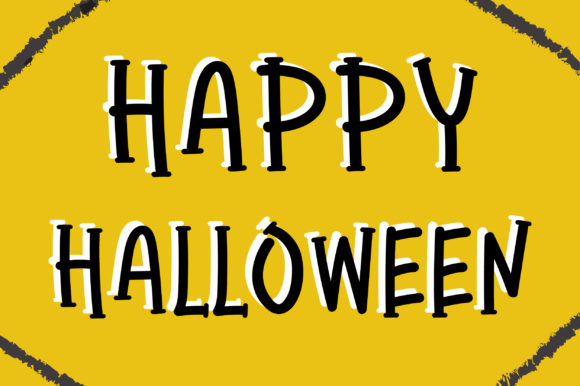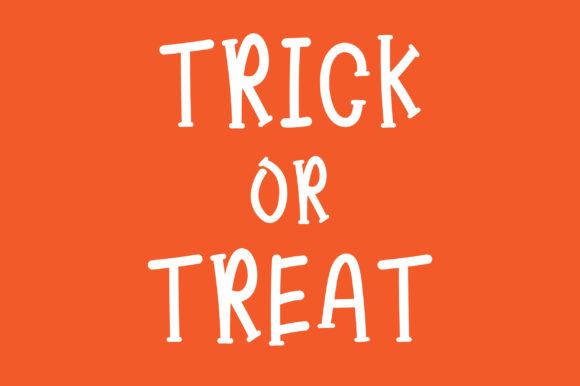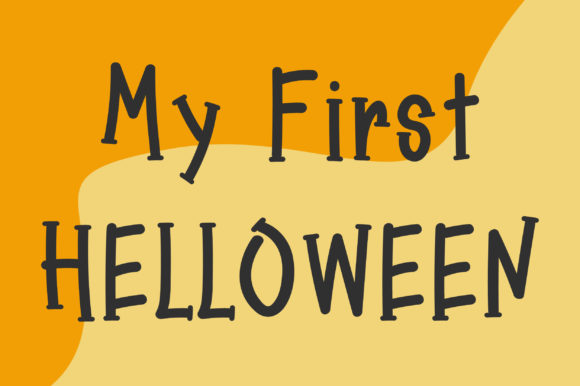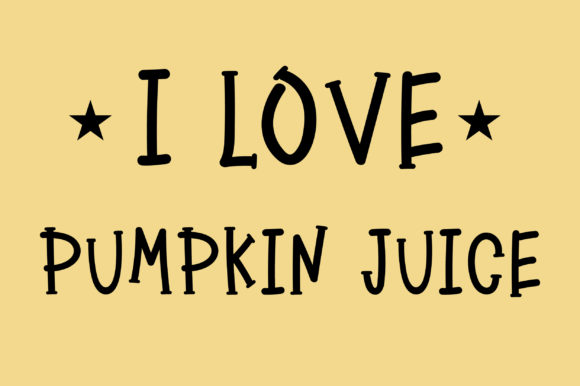
Introducing Happy Pumpkin: The Ultimate Cute and Quirky Display Font
Are you tired of using the same old fonts for your crafting projects? Look no further! Happy Pumpkin is here to revolutionize your creative endeavors with its unique playfulness and enchanting charm. This delightful display font is perfect for designers and crafters who want to add a touch of whimsy to their work.
The Perfect Font for Crafters and Designers
Happy Pumpkin is a one-of-a-kind font that will make your projects stand out from the crowd. Its cute and quirky design is sure to capture the attention of your audience and leave a lasting impression. Whether you’re working on a DIY project, creating digital content, or designing a brand identity, Happy Pumpkin is the perfect choice.
Unique Playfulness and Enchanting Charm
So, what sets Happy Pumpkin apart from other fonts? Its unique playfulness and enchanting charm are just the beginning. This font is designed to evoke a sense of joy and wonder, making it perfect for projects that require a touch of magic. With Happy Pumpkin, you can add a dash of personality to your work and make it truly unforgettable.
Brighten Up Your Crafting Projects
Are you looking for a way to brighten up your crafting projects? Happy Pumpkin is the answer! This delightful font can be used to create a wide range of projects, from handmade cards and invitations to DIY decorations and digital content. With Happy Pumpkin, you can add a touch of warmth and personality to your work, making it perfect for special occasions and everyday projects alike.
Key Features of Happy Pumpkin Font
- Cute and Quirky Design: Happy Pumpkin features a unique and playful design that’s sure to capture attention.
- Display Font: This font is perfect for headlines, titles, and other display text.
- Enchanting Charm: Happy Pumpkin has a magical quality that will make your projects stand out.
- Unique Playfulness: This font is designed to add a touch of whimsy to your work.
- Perfect for Crafting Projects: Happy Pumpkin is ideal for DIY projects, handmade cards, and digital content.
- Create handmade cards and invitations for special occasions.
- Design DIY decorations and signs for your home or office.
- Add a touch of personality to your digital content, such as blog posts and social media graphics.
- Use Happy Pumpkin to create eye-catching headlines and titles for your projects.
Tips and Tricks for Working with Happy Pumpkin
Here are a few tips and tricks to help you get the most out of Happy Pumpkin:
- Experiment with Different Sizes and Colors: Try out different sizes and colors to see what works best for your project.
- Combine with Other Fonts: Happy Pumpkin pairs well with other fonts, so don’t be afraid to experiment with different combinations.
- Use it Sparingly: Because Happy Pumpkin is a display font, it’s best to use it sparingly to avoid overwhelming your design.
In conclusion, Happy Pumpkin is a unique and enchanting font that’s perfect for designers and crafters who want to add a touch of whimsy to their work. With its cute and quirky design, unique playfulness, and enchanting charm, Happy Pumpkin is sure to make your projects stand out. So why wait? Download Happy Pumpkin today and start creating your own magical projects!